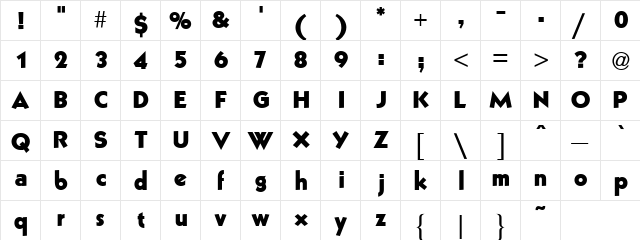
Bear Regular
Design Context for Bear Typeface
Bear is a composed and adaptable typeface that performs quietly and consistently across a wide range of design contexts.